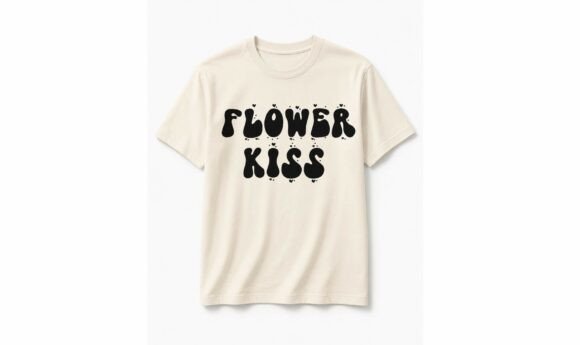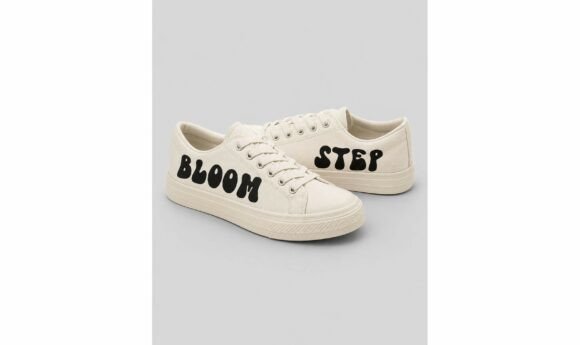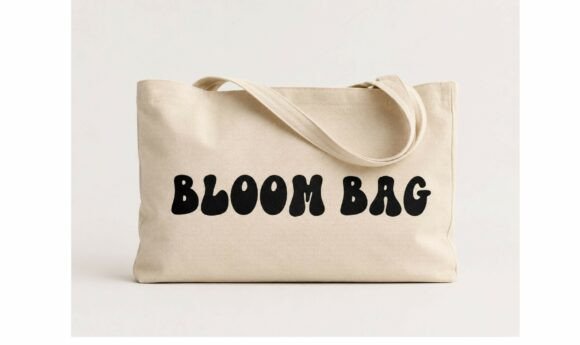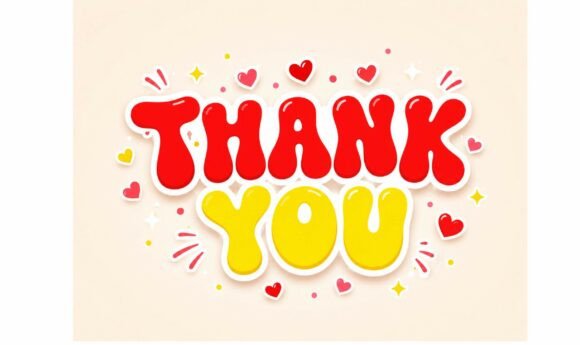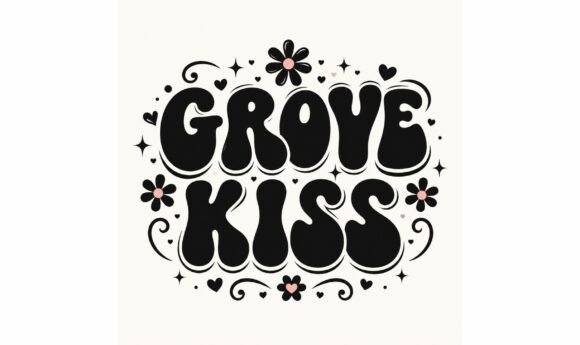
Introducing Groovy Kiss Font: The Ultimate Retro-Inspired Display Font
Are you looking for a font that adds a touch of playfulness, romance, and nostalgia to your designs? Look no further than Groovy Kiss, a fun and bold display font that’s perfect for creative projects that require a vintage flair. Inspired by retro bubble typography, cute floral ornaments, and playful love-themed lettering, Groovy Kiss is sure to make your designs stand out.
What Makes Groovy Kiss Special?
Groovy Kiss boasts thick rounded shapes, soft curves, and a strong vintage personality that makes every design look cheerful, expressive, and eye-catching. Its bold shape makes the text easy to read, while the groovy style adds a sweet and nostalgic touch. This font is suitable for a wide range of creative projects, including:
• T-shirt designs
• Tote bag prints
• Stickers
• Mugs
• Greeting cards
• Posters
• Packaging
• Branding
• Cricut crafts
• Sublimation designs
• Social media graphics
Ideal for Cute, Feminine, Retro, Romantic, and Playful Designs
Groovy Kiss works best for designs that require a cute, feminine, retro, romantic, and playful touch. Whether you’re creating Valentine’s Day designs, birthday gifts, thank-you cards, or handmade products, this font is sure to add a touch of whimsy and charm. It’s also perfect for boutique branding, children’s products, and commercial print-on-demand items.
Key Features of Groovy Kiss Font
• Fun and bold display font
• Inspired by retro bubble typography, cute floral ornaments, and playful love-themed lettering
• Thick rounded shapes and soft curves
• Strong vintage personality
• Easy to read
• Adds a sweet and nostalgic touch to designs
Groovy Kiss font is a fun and bold display font that’s perfect for creative projects that require a vintage flair. With its thick rounded shapes, soft curves, and strong vintage personality, it’s sure to add a touch of playfulness, romance, and nostalgia to your designs. Whether you’re a designer, crafter, or DIY enthusiast, Groovy Kiss font is a great addition to your font library.